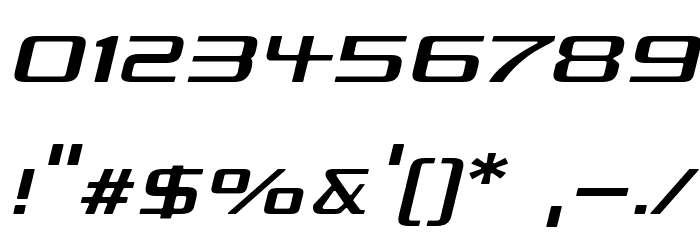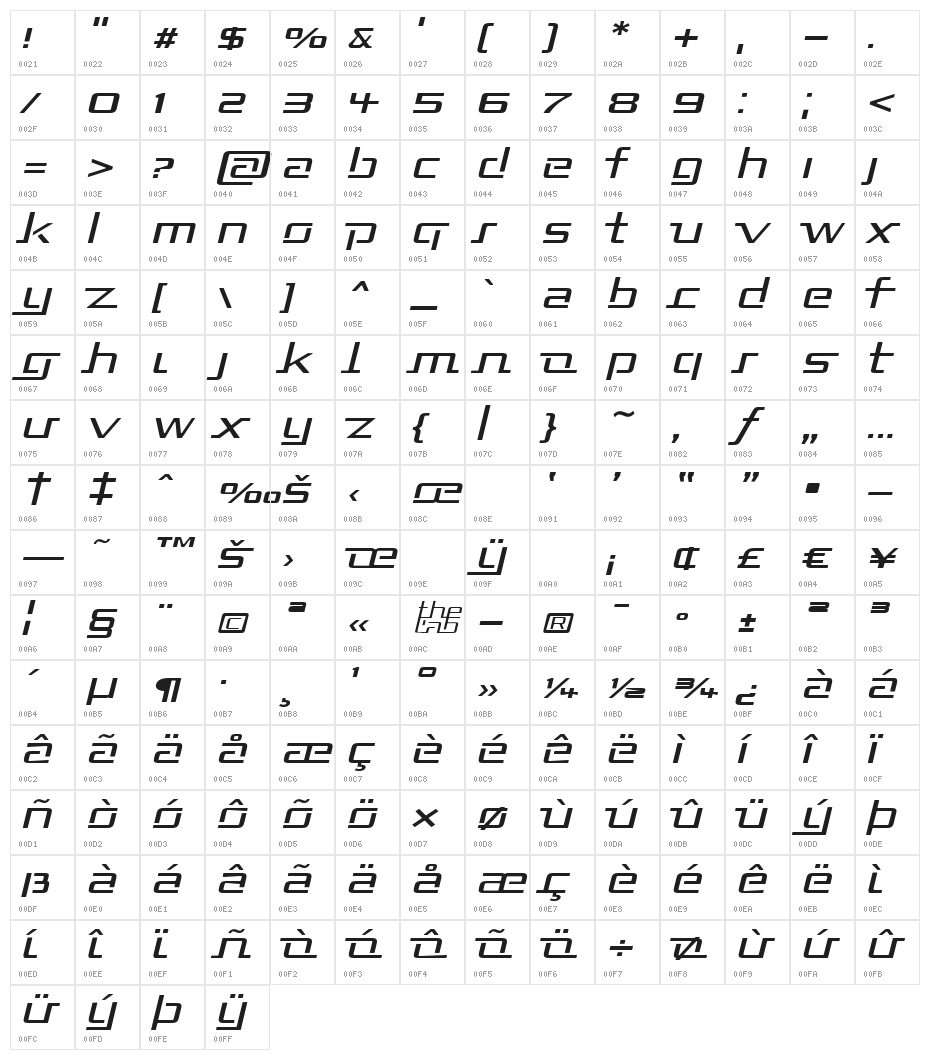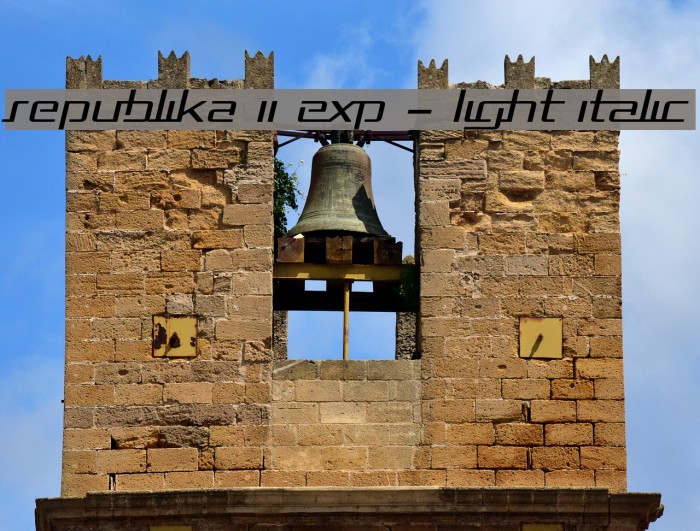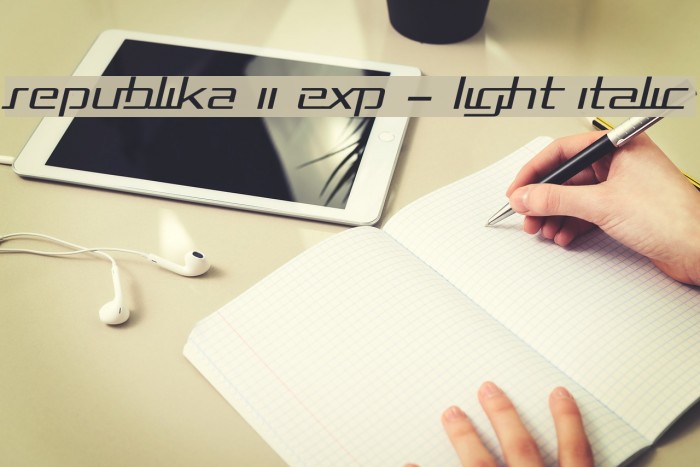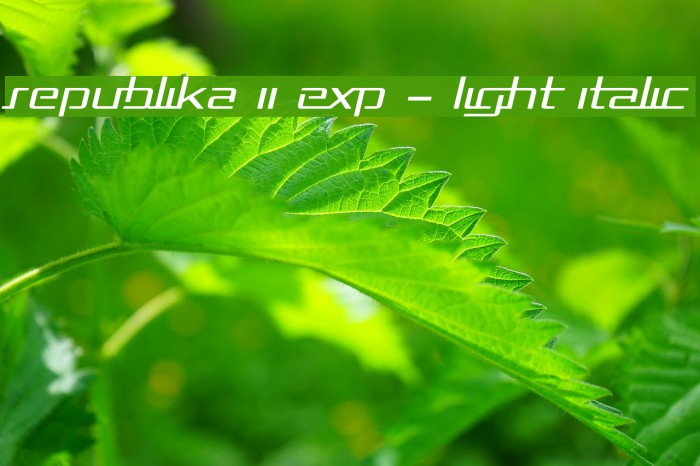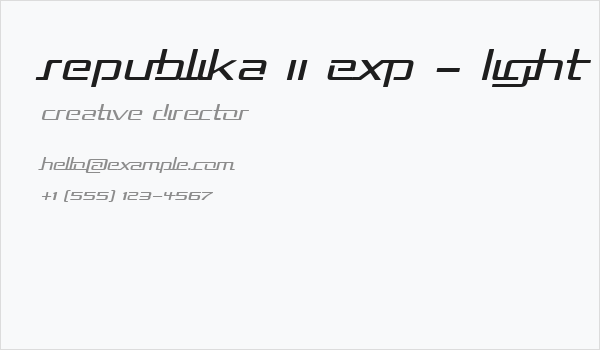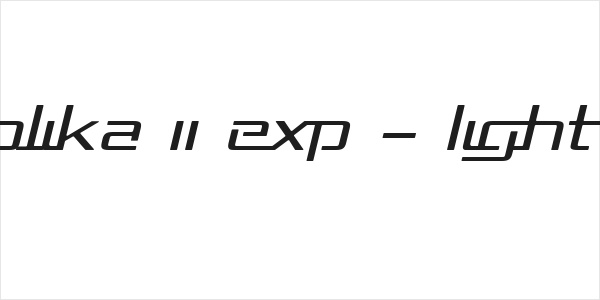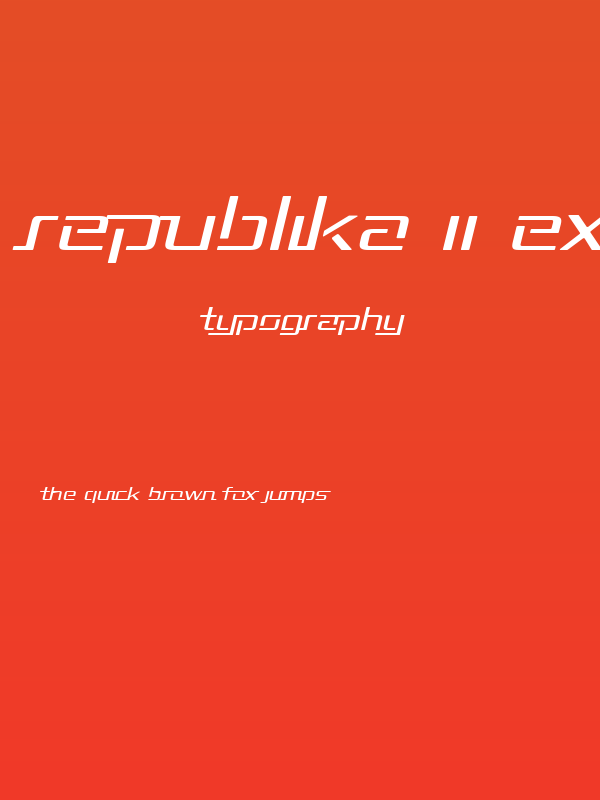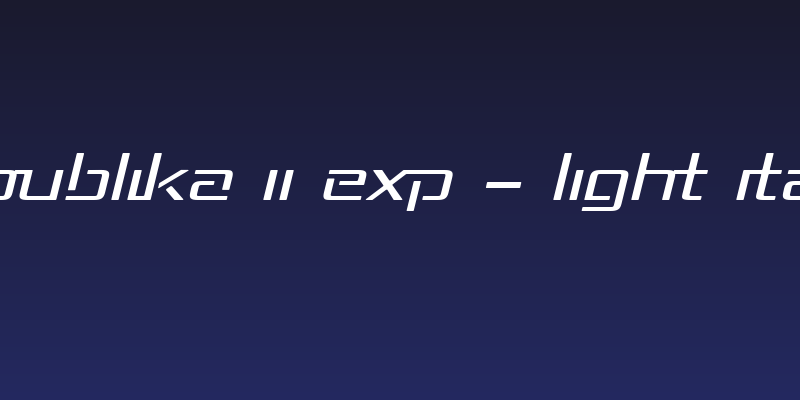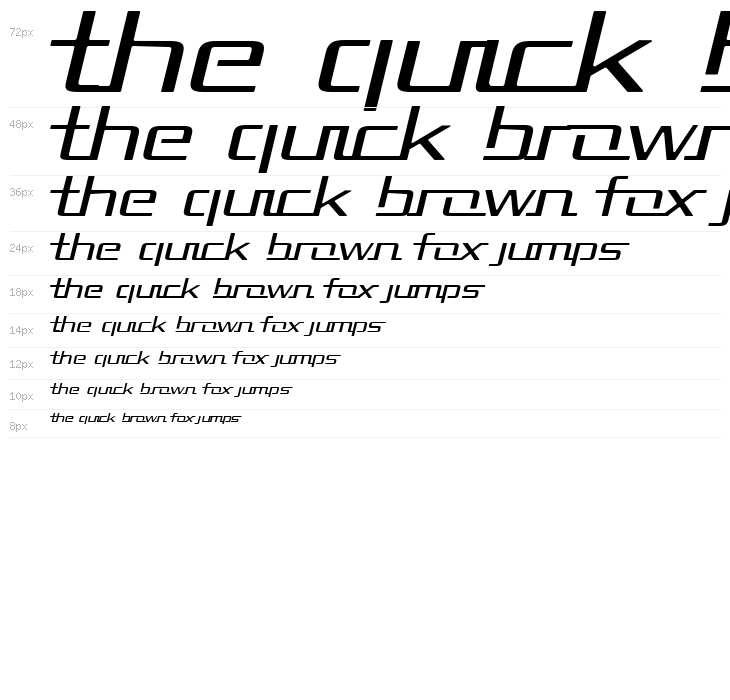
Republika II Exp - Light Italic Font
Republika II Exp - Light Italic Description
This font features a sleek, modern design with a futuristic flair. The characters are slightly italicized, giving a sense of motion and dynamism. The strokes are consistent and smooth, with a geometric influence that is evident in the angular shapes and clean lines. The font maintains a uniform weight throughout, contributing to its streamlined appearance. It is particularly well-suited for digital applications, where its clarity and precision can be fully appreciated. The spacing between characters is normal, ensuring readability without sacrificing style. This font is ideal for projects that require a contemporary and innovative look.
| Proposed Projects | Ideal for tech branding, digital interfaces, modern advertising, and futuristic design projects. |